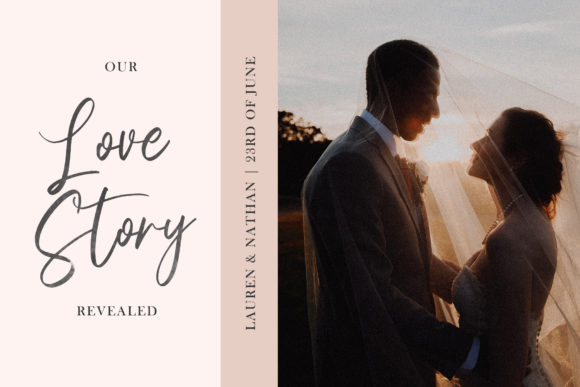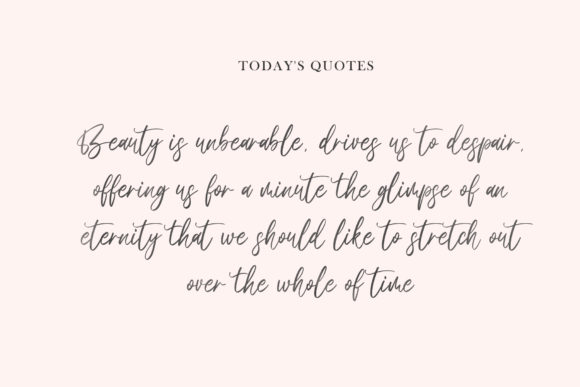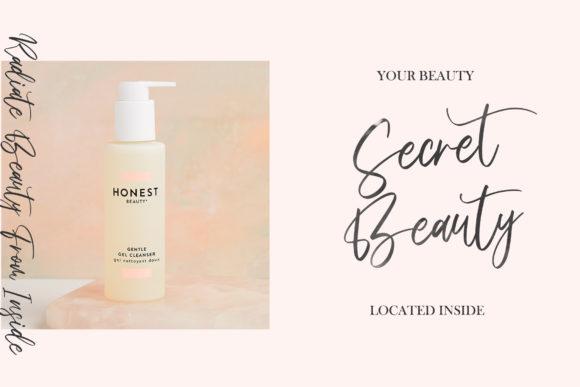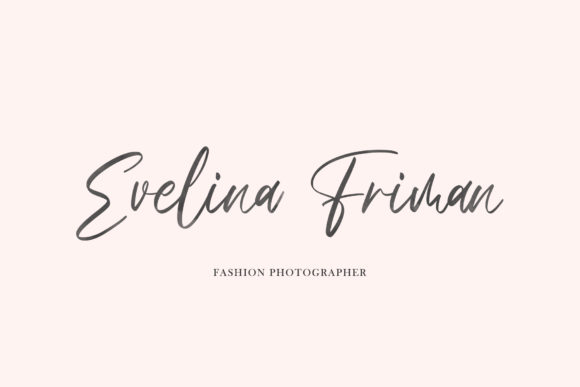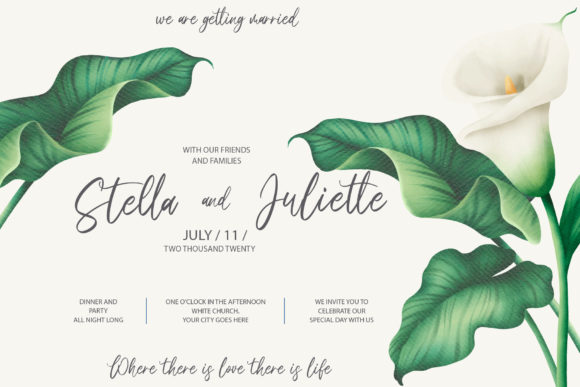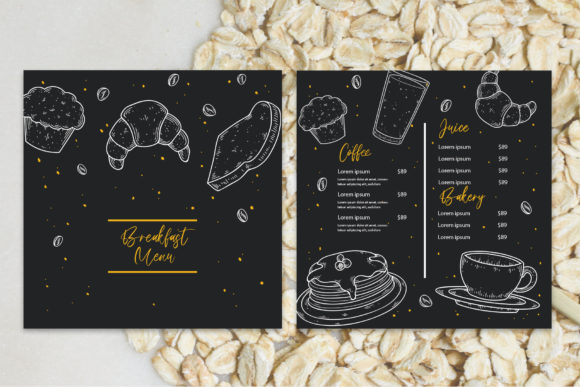
The Bournemouth Font: A Timeless Elegance for Your Designs
Have you ever been in the middle of a design project, and suddenly, you’re stuck on finding the perfect font? I recall a recent experience where I was working on a client’s branding project, and I just couldn’t seem to find a font that captured the essence of their elegant and sophisticated brand. That’s when I stumbled upon the Bournemouth font, and it was love at first sight! 💕
A Personal Review: What I Love About Bournemouth Font
The Bournemouth font is a flowing handwritten font that exudes an elegant touch, making it perfect for a wide range of projects. Here are some things I love about it:
- ✨ Incredibly distinct and timeless style
- ✅ Elegant and sophisticated feel
- 💫 Perfect for branding, packaging, and advertising projects
- 🎨 Highly versatile and can be used for both digital and print projects
While I absolutely adore the Bournemouth font, there are a few minor quirks to be aware of:
- 🤔 Some characters may not work well in very small font sizes
- ⚠️ Limited availability of certain language scripts
- Experiment with OpenType features, such as ligatures and stylistic alternates, to add more flair to your design.
- Explore the font’s glyphs and OpenType features, such as swashes and stylistic sets, to add more creativity to your design.
The Bournemouth font was inspired by the beautiful coastal town of Bournemouth in southern England. The font’s designer wanted to capture the essence of the town’s elegant and sophisticated atmosphere, and the result is a font that exudes timeless elegance. While the actual designer’s story might be fictional, it’s easy to imagine the inspiration behind this beautiful font.
| What type of projects is the Bournemouth font best suited for? | The Bournemouth font is perfect for branding, packaging, advertising, and any project that requires an elegant and sophisticated touch. |
| Can I use the Bournemouth font in both digital and print projects? | Yes, the Bournemouth font is highly versatile and can be used for both digital and print projects. |